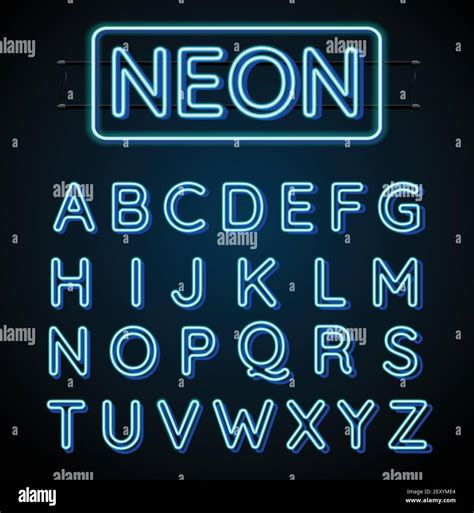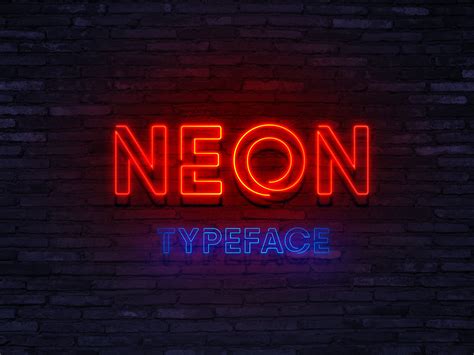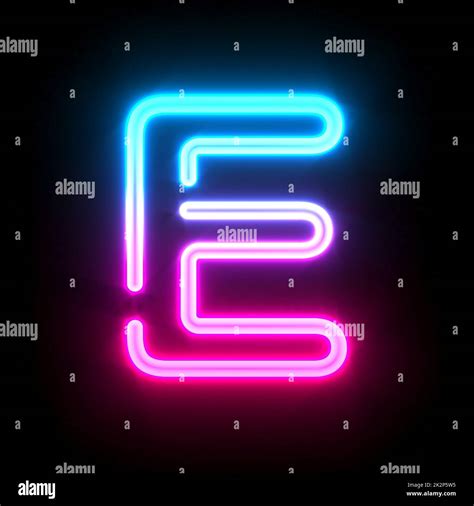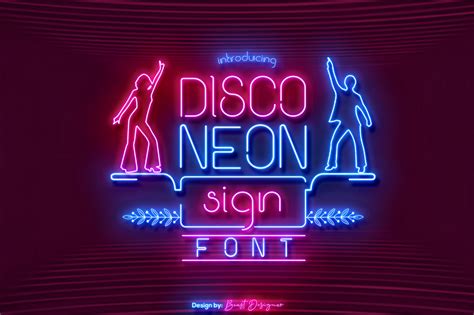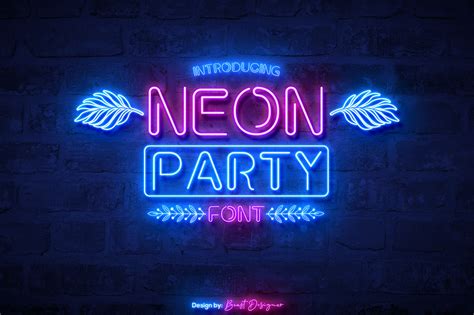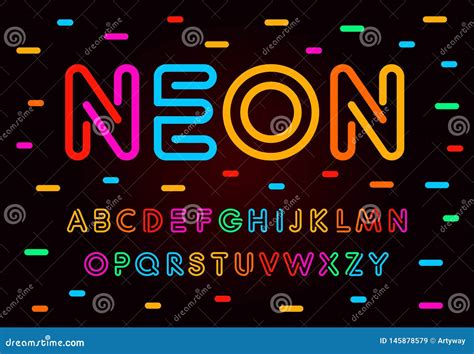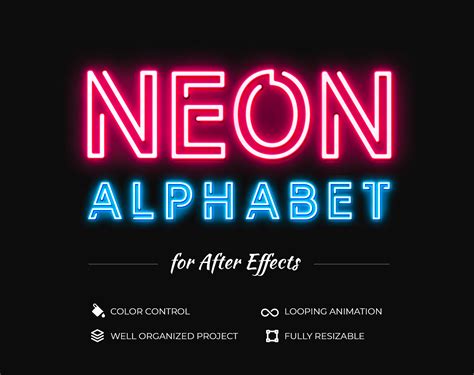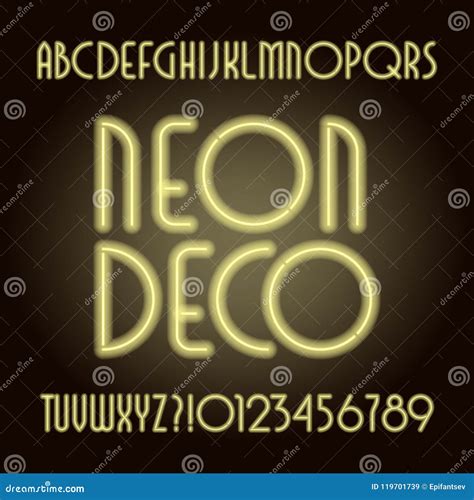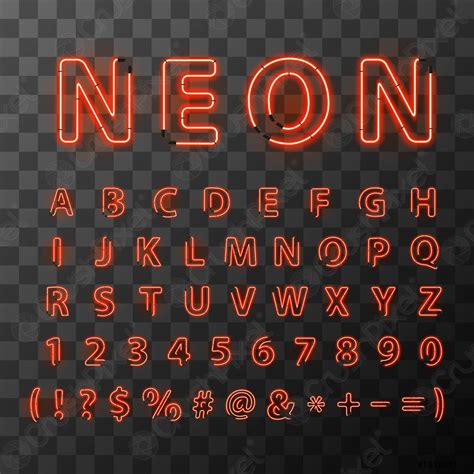
The visual impingement of modernistic digital design much hinges on the power to evoke atmosphere through typography, and few choices are as evocative as a Neon Letters Font. Whether you are crafting a nostalgic 1980s aesthetic or aiming for a futuristic cyberpunk vibration, these burn fount furnish an instant sense of energy and urban vibrancy. By leverage the interplay of light, shadow, and colouring, designer can transmute standard text into a centerpiece that enamor the watcher's attention instantly. Understanding how to take and implement these fonts is essential for anyone looking to elevate their branding, digital art, or marketing collateral.
Understanding the Aesthetic of Neon Typography
The appeal of a neon esthetical lie in its association with nighttime cityscape, late-night diner, and the glowing sign that light up urban surround. A Neon Letters Font typically mimics the physical properties of gas-discharge tubes, featuring round terminus, consistent line weights, and a soft outer luminescence that assume luminescence.
Key Characteristics of Neon Fonts
- Soft Glow: Most high-quality fonts in this category include subtle outer incandescence or interior blur to double the halo effect of real light.
- Connected Script vs. Block Style: Depending on the mode, you might choose a flowing script to mime handcrafted glassful tubes or a bluff sans-serif for a more industrial look.
- Coloration Reverberance: These fonts act best when paired with high-contrast background, usually deep blues, black, or dark purples.
When choose a typeface for your next labor, view the discernability factor. While neon effects seem stupefy, they can become hard to say if the luminescence is too acute or if the letters are too crowded. Always prioritize a balance between the artistic "glow" effect and the limpidity of the fibre.
Technical Considerations for Design Projects
Implement a Neon Letters Font effectively requires more than just selecting the right face. It involves a deep sympathy of stratum way, meld modes, and coloring possibility to ensure the schoolbook appear naturalistic sooner than plane. Below is a summary of how these styles differ based on common blueprint needs:
| Style Category | Best Employment | Optical Effect |
| Retro Script | Diner menus, nightlife case broadside | Fluid, nostalgic, warm |
| Bold Sans-Serif | Tech startups, gage thumbnail | Sharp, modern, belligerent |
| Outline/Stroke | Minimalist posters | Clean, architectural, subtle |
💡 Note: When applying neon effects in software like Photoshop or Illustrator, always severalize the "glow" into a different bed. This countenance you to adjust the blur intensity and opacity severally of the principal missive shape, see a more professional and customizable outcome.
Enhancing Readability and Impact
While the finish of expend a Neon Letters Font is oftentimes stylistic, the functionality of the text can not be ignored. Over-saturating a graphical with too many neon elements can direct to "optical noise", where the content become lose in the glare. To sustain wallop, consider expend a high-contrast coloration pallet. for instance, a brilliant magenta neon baptistry will pop importantly more against a dark charcoal background than against a light-colored grey one.
Best Practices for Glowing Text
- Layer Glows: Use multiple bed of glow - a tight, inner luminescence for the core brightness and a wider, softer outer glow for the ambient light release.
- Background Texture: Append a subtle brick wall or dark concrete texture behind the schoolbook can anchor the ne elements, create them find like they are rise on a physical surface.
- Animation: If you are make motion graphics, introduce a "glint" issue to add dynamic movement to your letters.
Overcome the covering of a Neon Letters Font opens up a world of originative hypothesis, allowing your designing to hum with the zip of a vivacious metropolis street. By concentrate on the relationship between light and phantom, balance stylistic effects with structural clarity, and select the right colouration combination for your quarry hearing, you can make visuals that are both functional and visually arresting. Whether you are plan for a digital drive or a large-scale physical mark, the proper execution of these shine constituent will assure your message resonates with strength and mode. By following these foundational rule, you will be well-equipped to handle any plan challenge that calls for a touch of light-colored and artistic style in your composition.